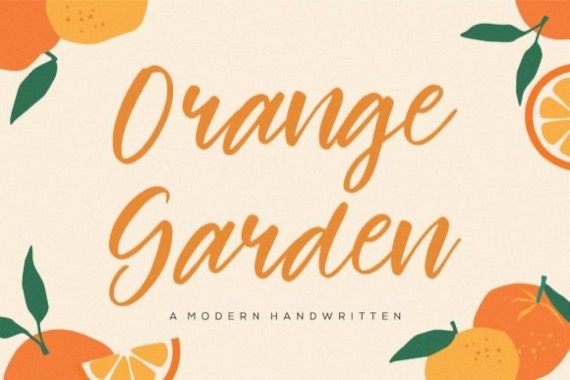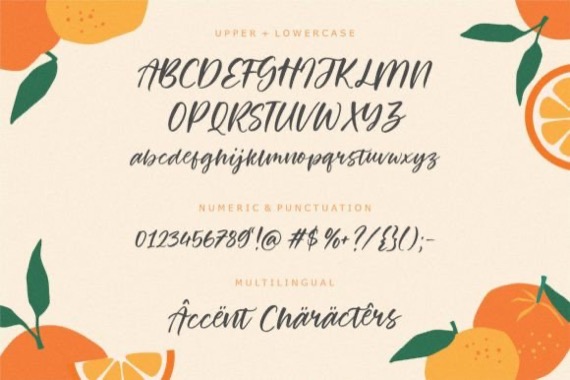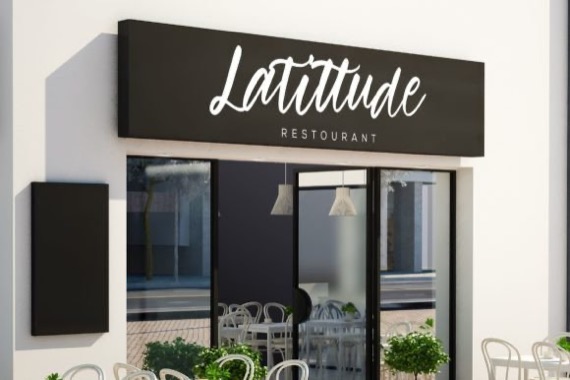
Happy to introduce a new modern and classy script font from Balpirick Studio, Orange Garden is a modern handwritten typeface that’s perfect for adding a lovely touch to your design projects!
Crafted with care and attention to detail, this font is incredibly versatile and can be used for a range of design projects, including logos, branding, invitations, and more. Its modern, handwritten style gives it a unique character that’s sure to make an impact.
Orange Garden Handwritten Font
Designer, Publisher: Balpirick